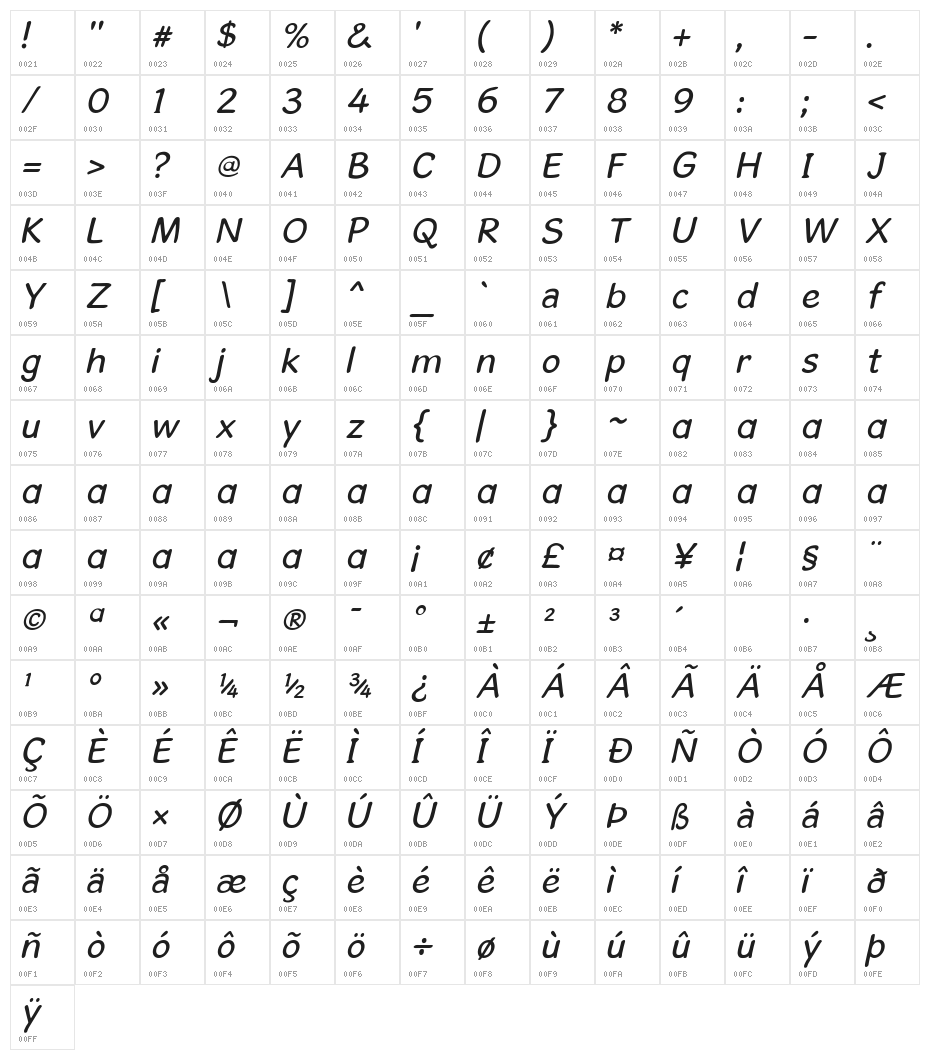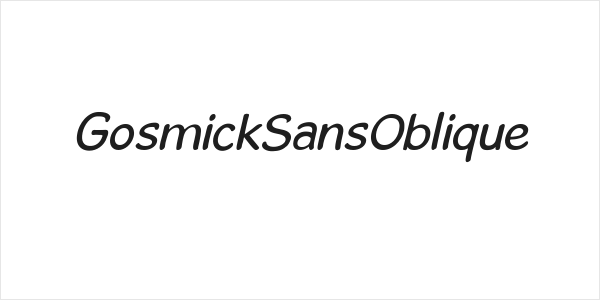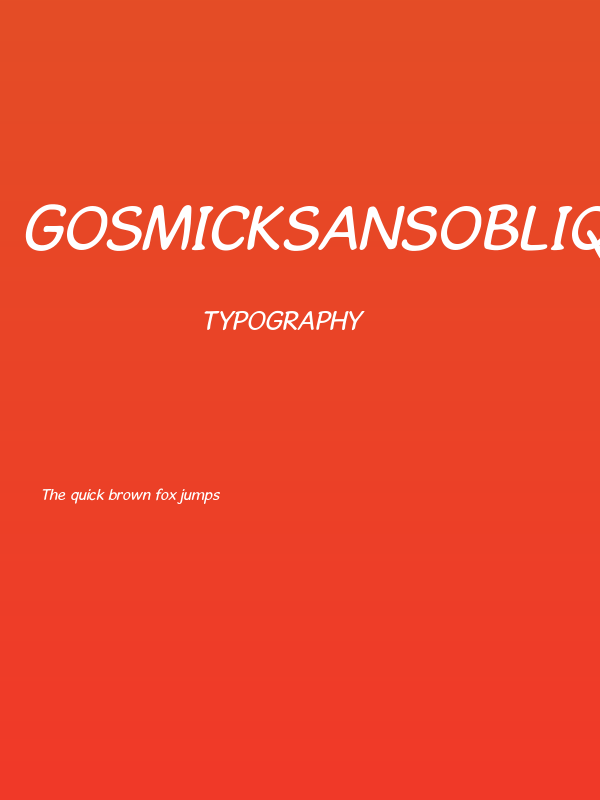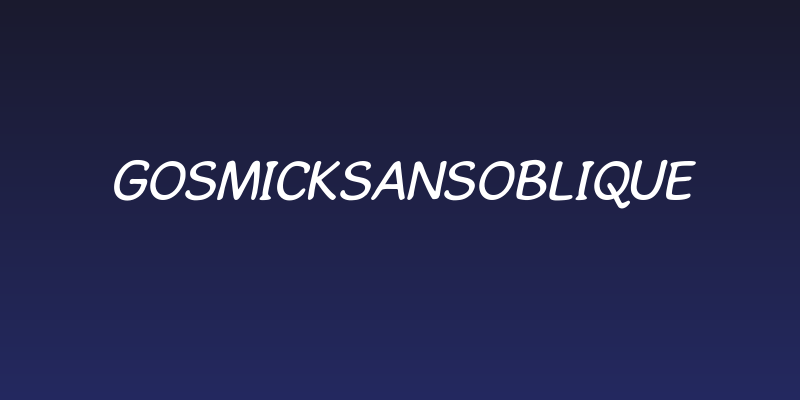
GosmickSansOblique Font
GosmickSansOblique Description
This font features a playful and dynamic style with a slight oblique slant, giving it a sense of movement and energy. The characters are rounded and smooth, providing a friendly and approachable appearance. The uppercase and lowercase letters maintain consistency in their design, with a uniform stroke width that ensures readability. The numerals are clear and distinct, making them easy to distinguish. Special characters are well-integrated, maintaining the overall aesthetic of the font. This style is suitable for projects that require a casual and informal tone.
| Proposed Projects | Ideal for children's books, casual branding, playful posters, and informal digital content. |